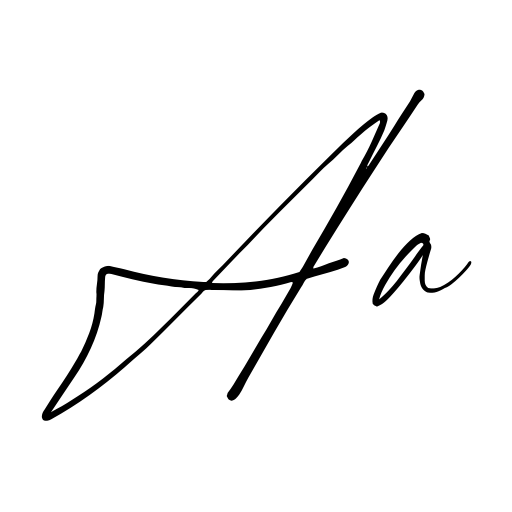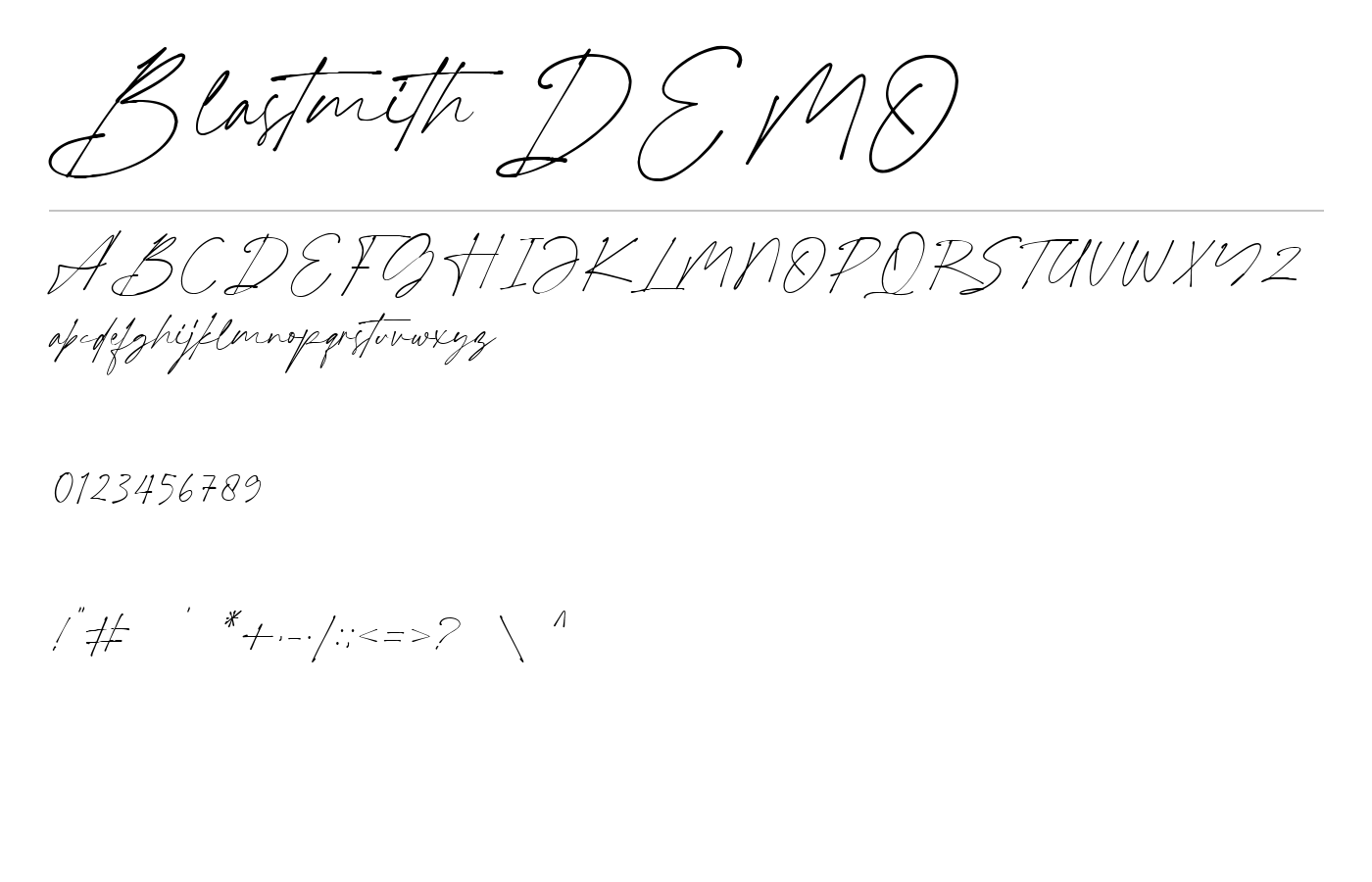
Blastmith DEMO is a delicate, elegant script font that mimics natural handwriting with its thin, flowing strokes and slight variations in pressure. Its tall, airy letterforms and refined style make it ideal for personal branding, invitations, and creative projects that require a sophisticated yet approachable touch. This font works best in large sizes where its detail and graceful curves can be fully appreciated.
Blastmith DEMO Font
About Blastmith DEMO Font
| Font family | Blastmith DEMO Font |
| Designer | Prio Nurokhim Aji |